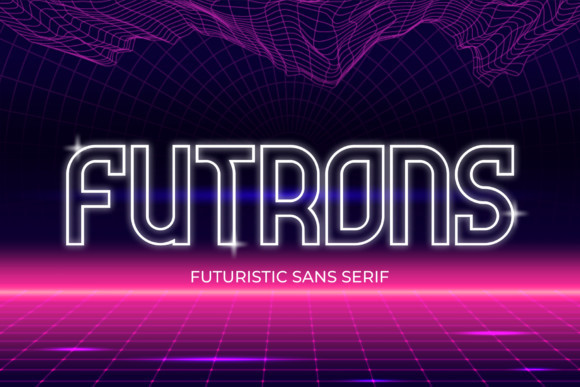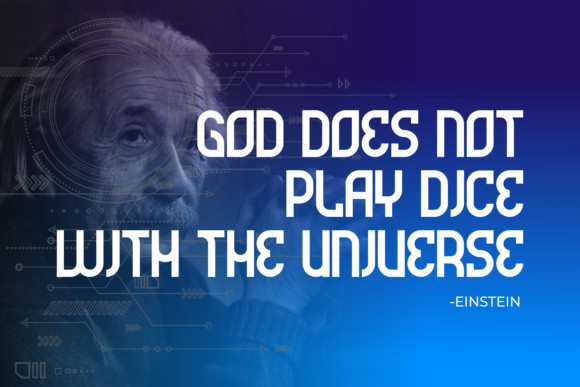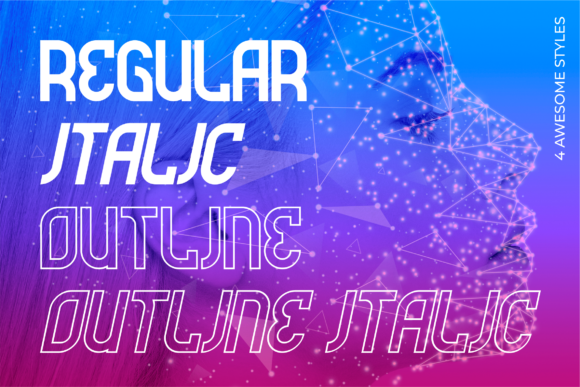
Futrons Font
Futrons FontFutrons is a fun display font. It features a futuristic and minimal look.
Take a trip through time and use it for movie posters, flyers, social media posts and much more!